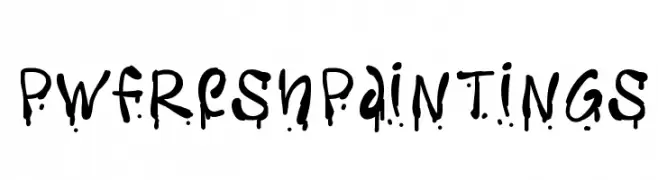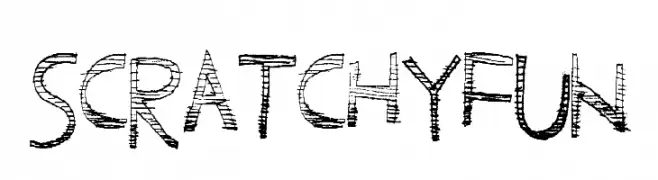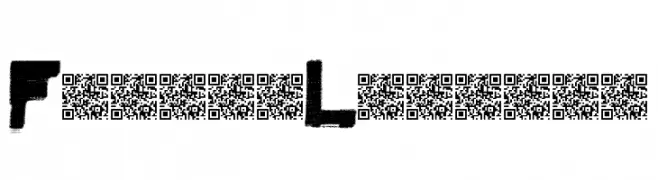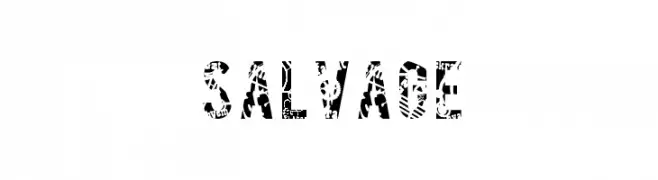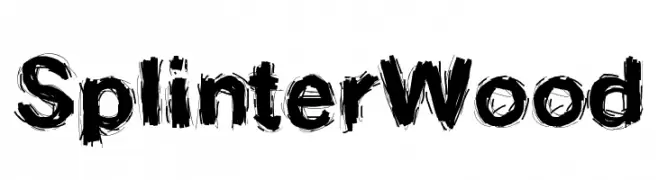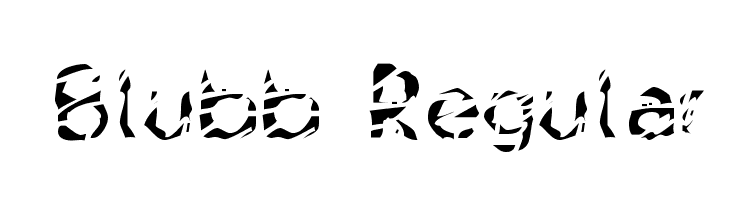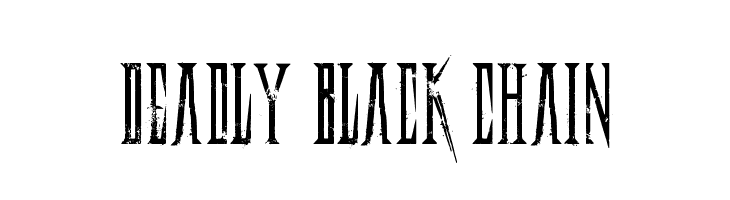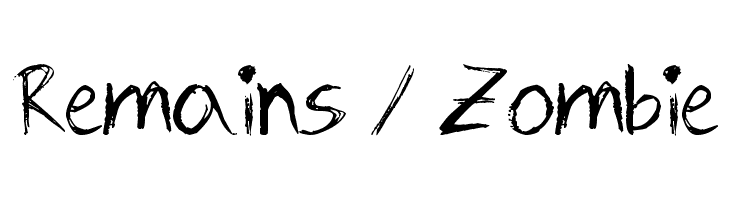
A decorative font with fragmented, abstract letterforms for a dynamic look.
A bold, distressed font with tall, narrow letterforms and a gritty, weathered texture.
A bold, jagged font with an edgy, rebellious style.
A bold, artistic font with a dripping paint effect, ideal for creative projects.
A playful, hand-drawn font with scratchy, textured lines.
A bold, textured font with a playful, distressed style.
A rugged, textured font with a splintered wood appearance.
A bold, distressed font with a grunge aesthetic and rugged texture.